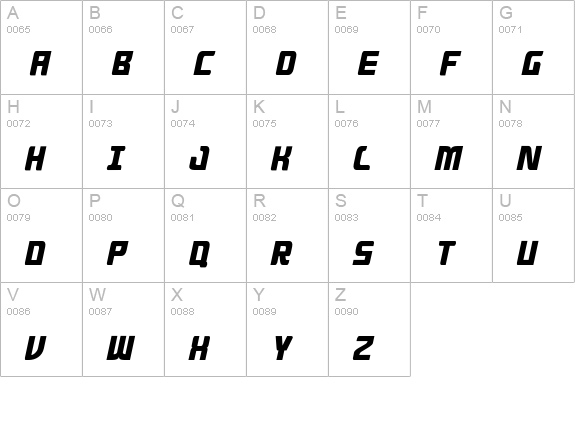
Aquasky20ALP-Italic is a distinctive, italic variant in the Aquasky20ALP typeface family \xE2\x80\x94 well suited to design and typography projects.
Aquasky20ALP-Italic font is a sleek and modern typeface that exudes elegance and sophistication. Its unique italic style adds a touch of flair to any design project, making it perfect for use in branding, advertising, and editorial design. The font features clean lines and sharp angles, giving it a contemporary and dynamic look. What sets Aquasky20ALP-Italic font apart is that it is completely free to download from FontsMarket.com. This means that you can access this high-quality typeface without any cost, making it a valuable addition to your font collection. Whether you're a professional designer or a hobbyist looking to elevate your projects, Aquasky20ALP-Italic font offers versatility and style that will help you stand out. Download Aquasky20ALP-Italic font today and unleash your creativity with this modern and eye-catching typeface.